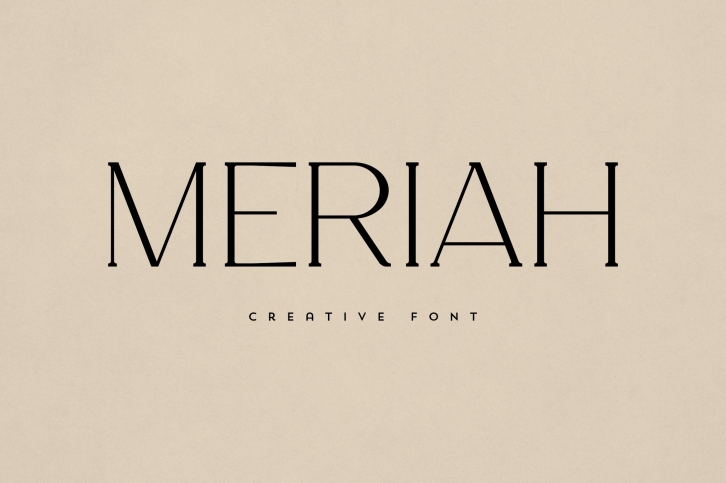
Meriah is a trendy and unique font with an authentic style. It was designed by VPcreativeshop and it's a great choice for creative people who need such a font. It was released on October 18, 2022 and the file size is 7.96 MB. Meriah will add an organic vibe to any design idea!